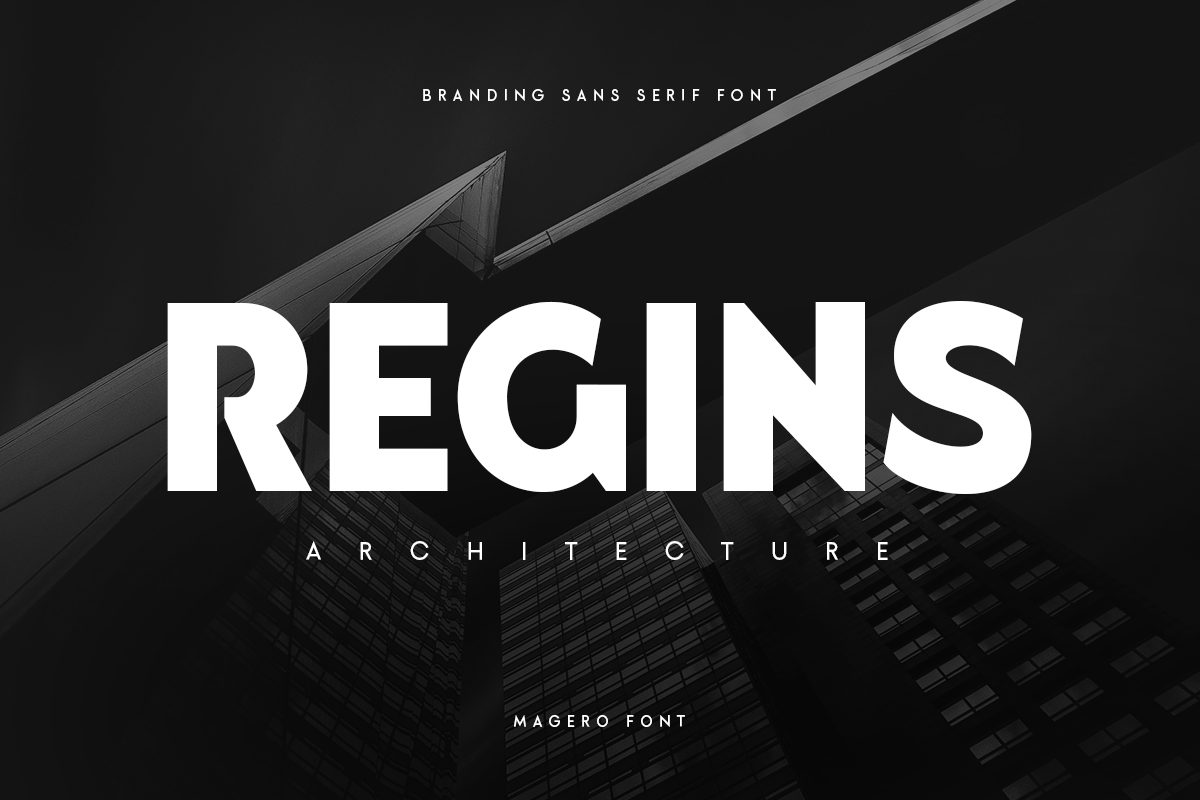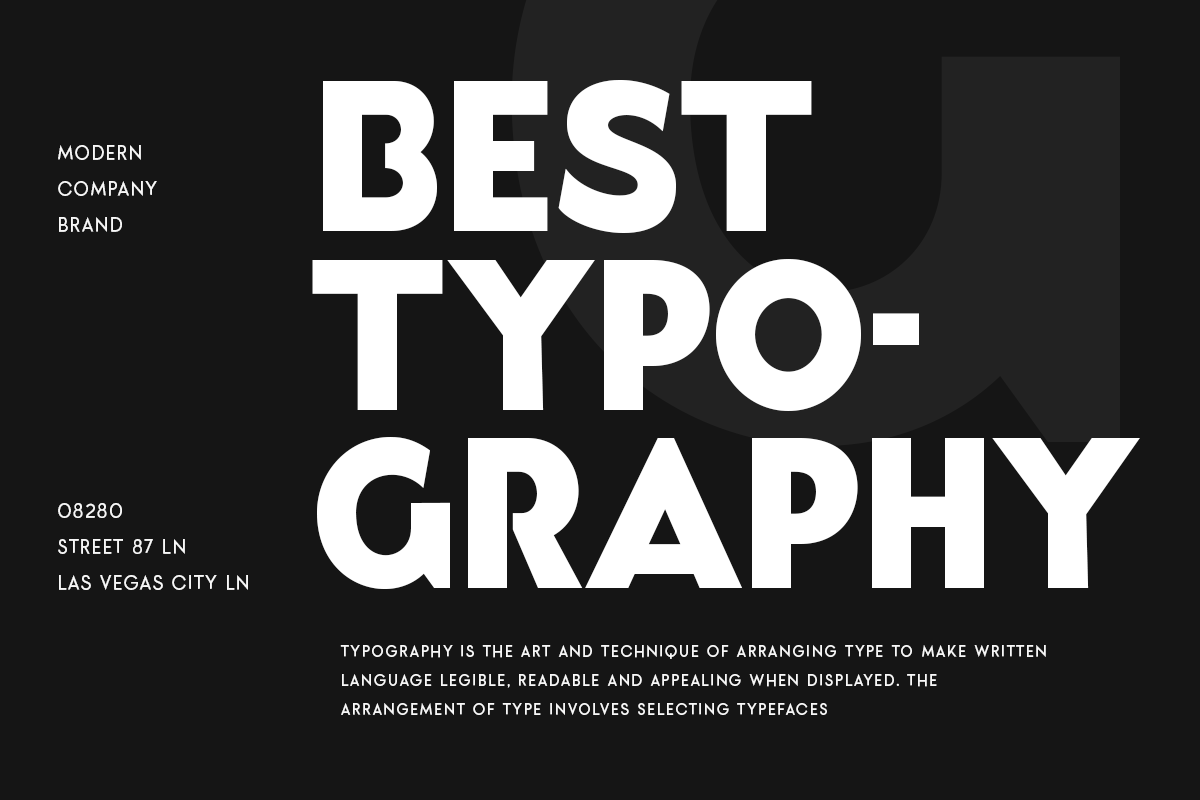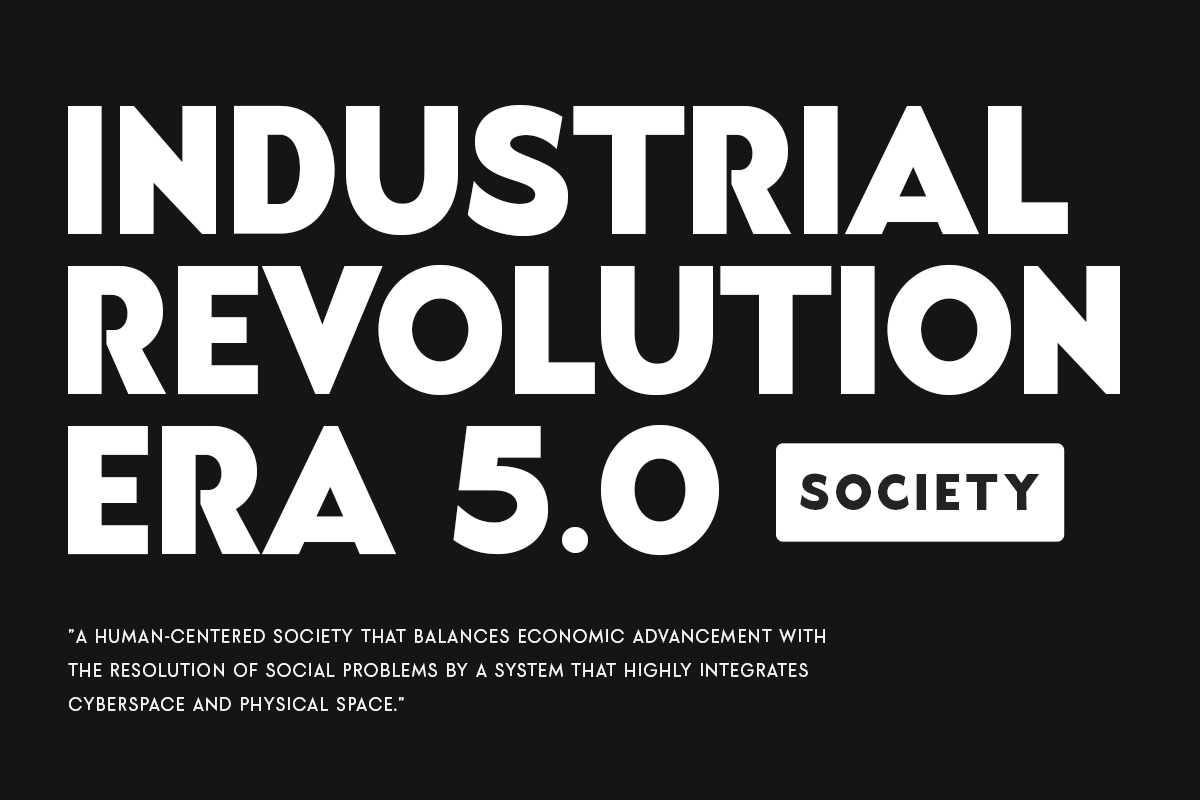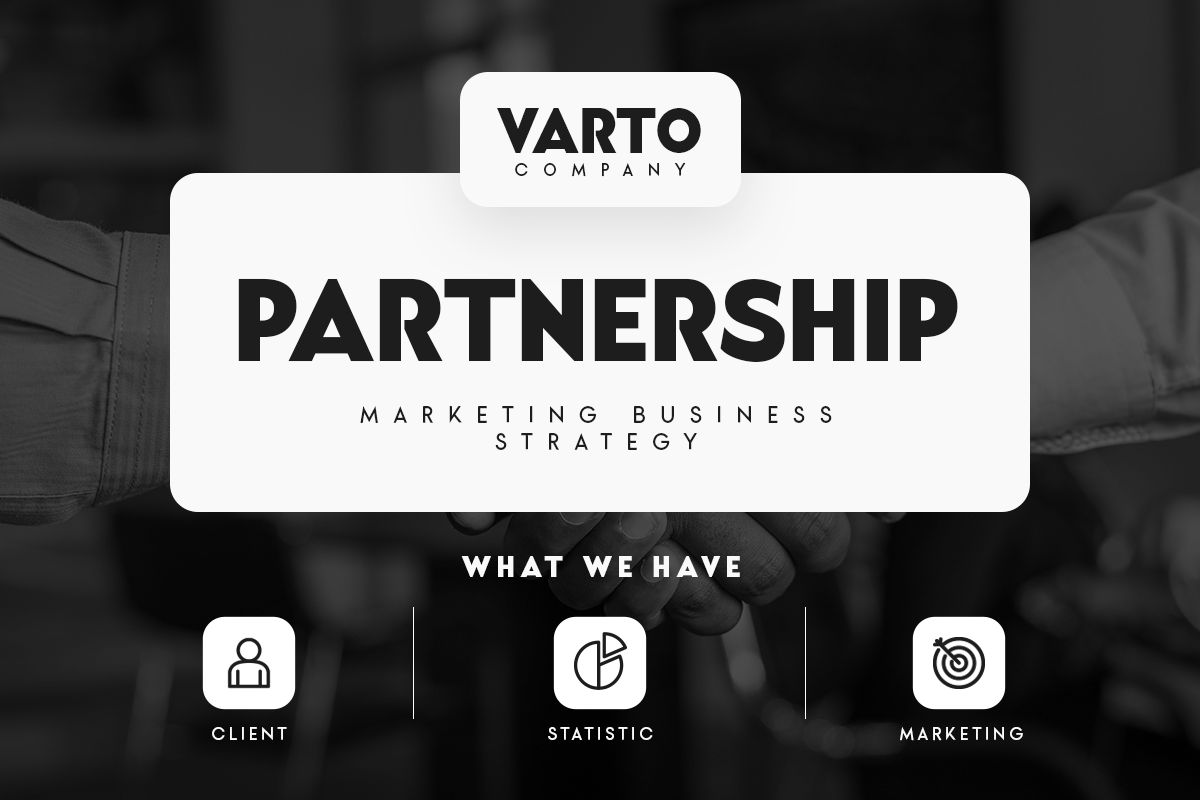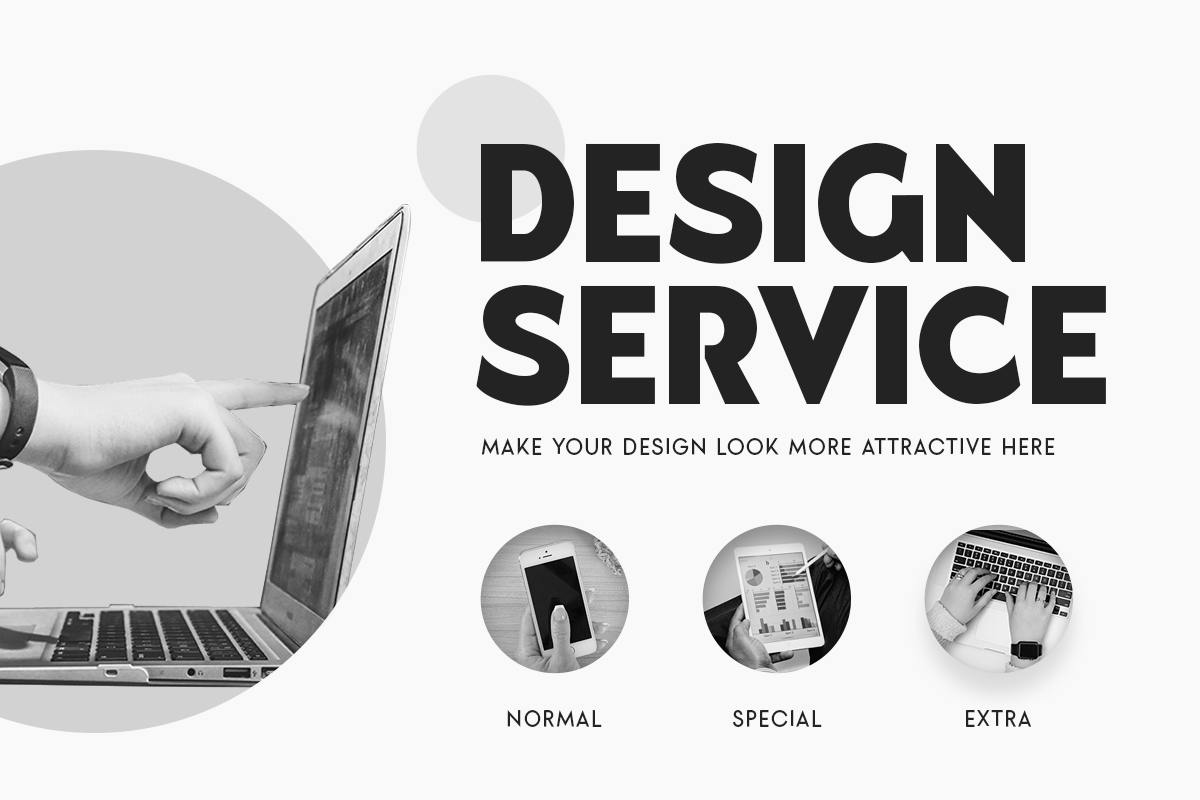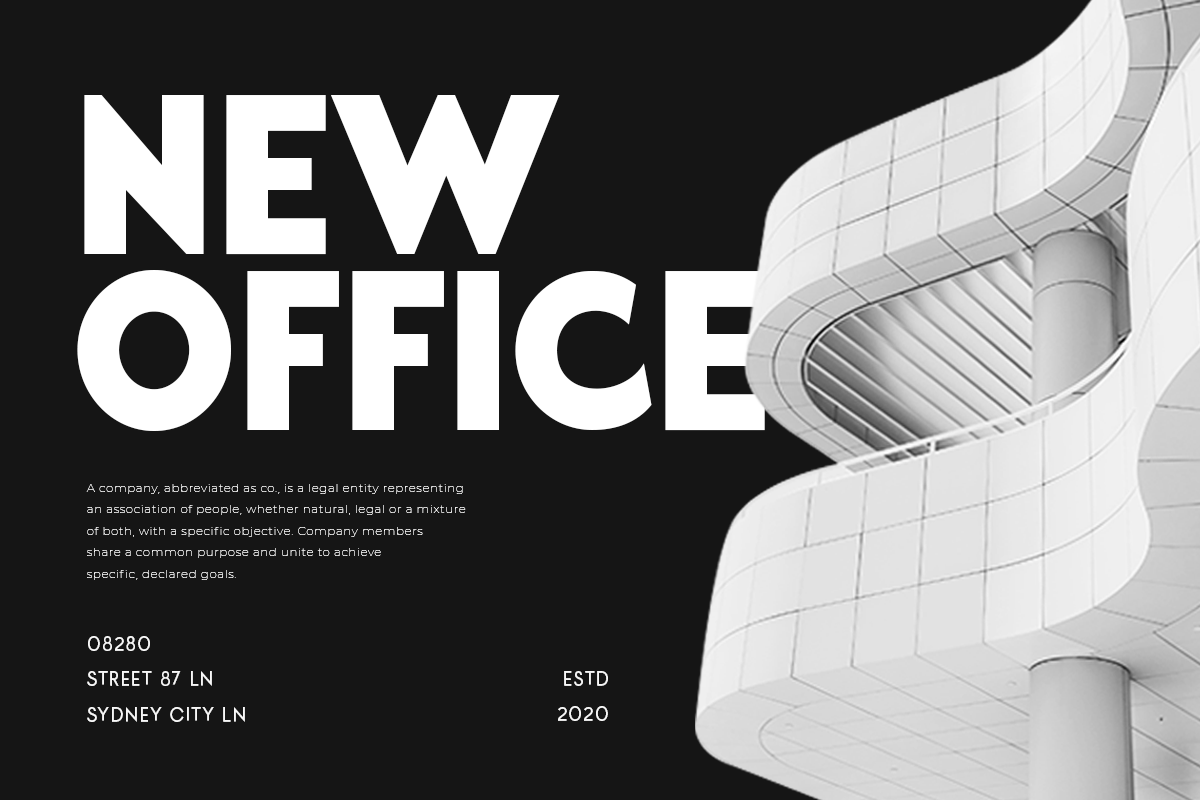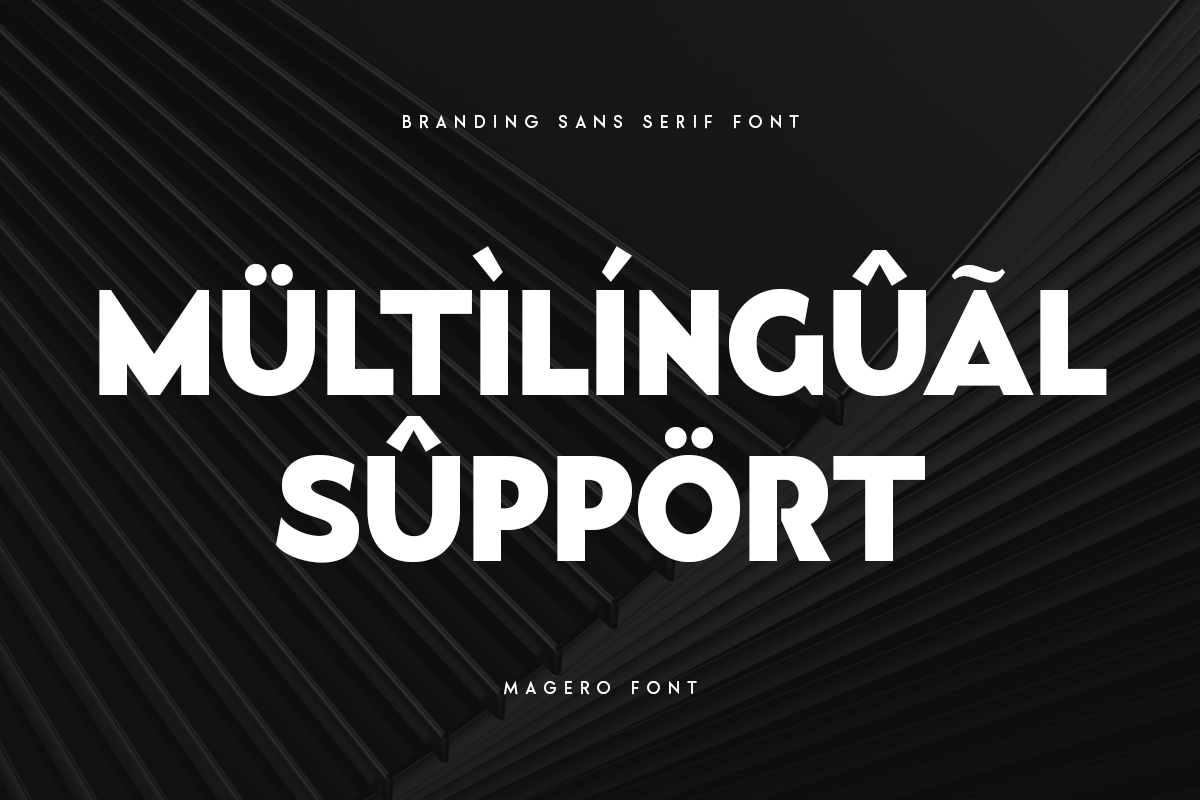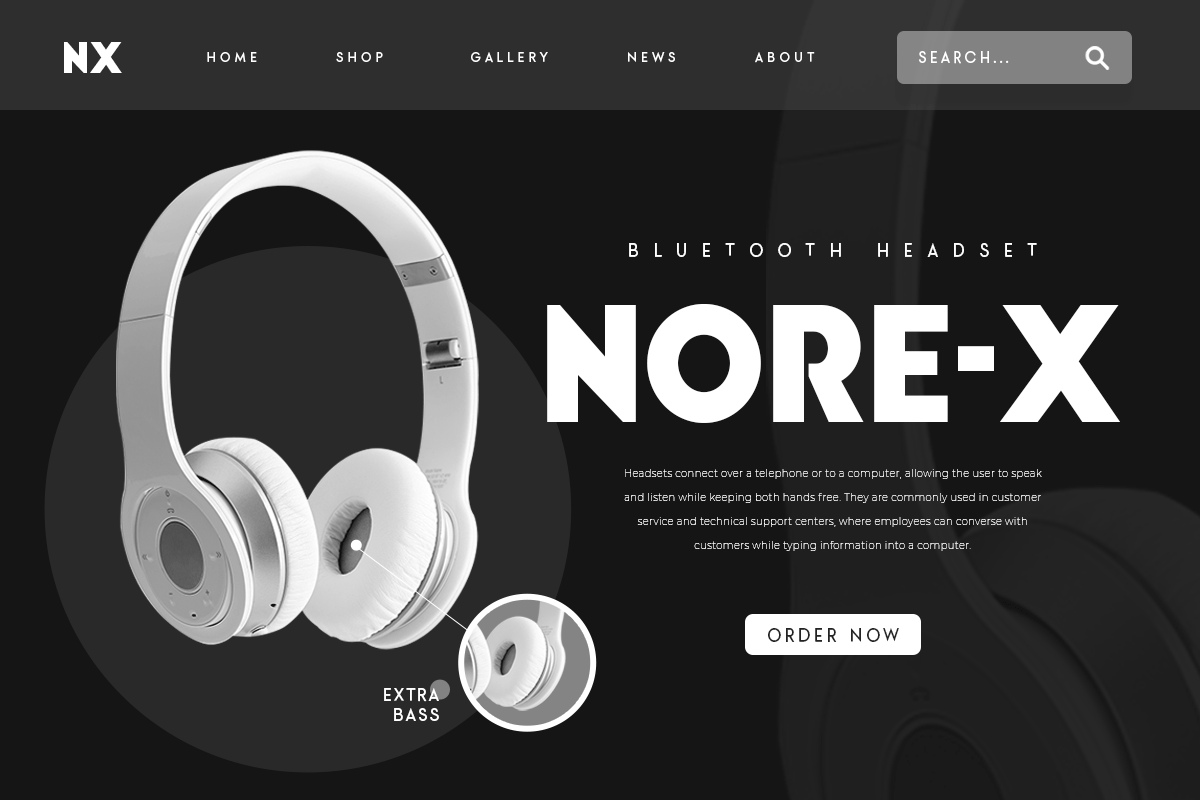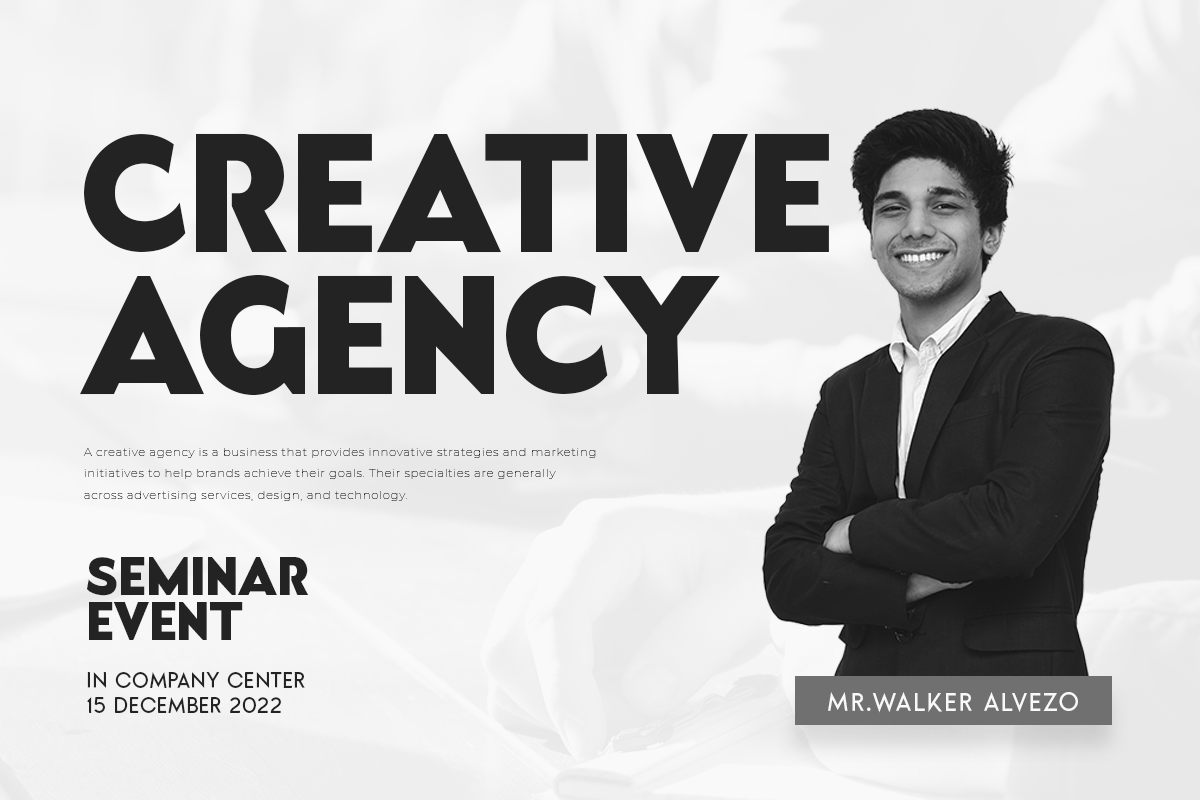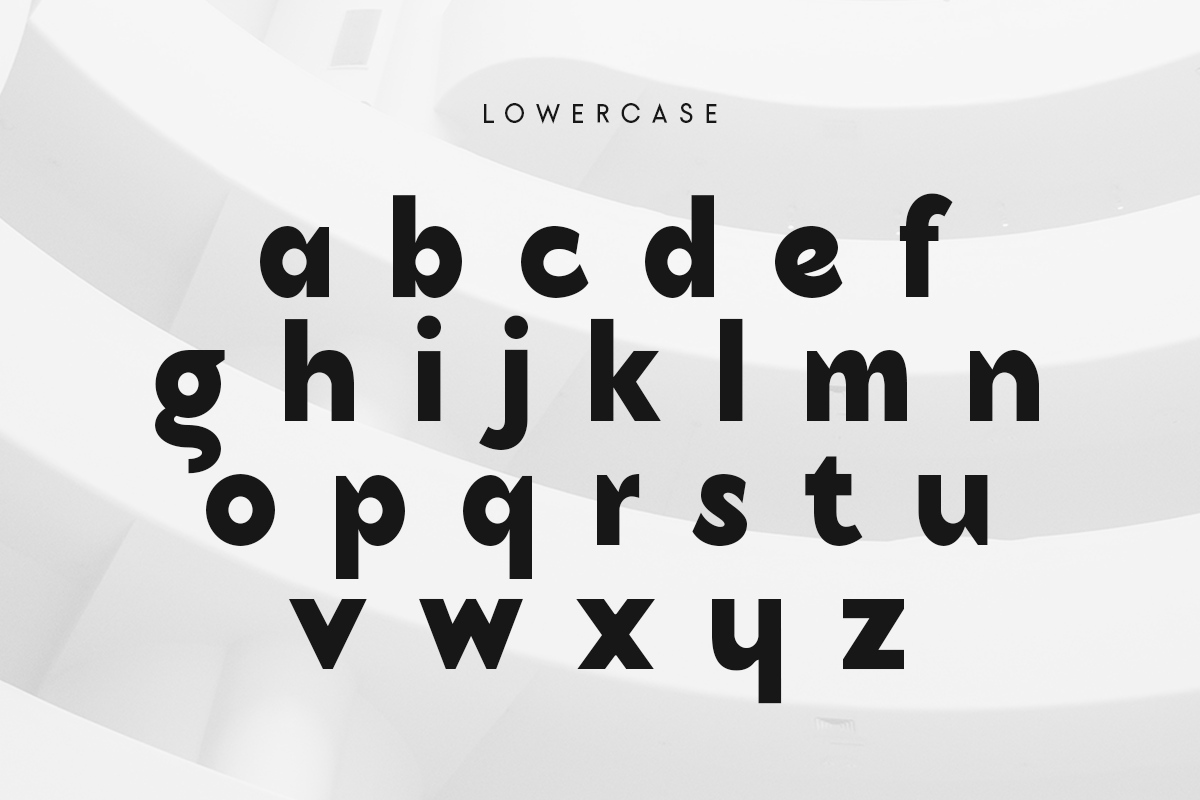
Magero – Branding Sans Serif Font
Magero is a Geometric sans serif font with modern, minimalist, elegant, unique and bold-look. This font crafted specials for Modern-themed projects, ready to use on Magazine, Social Media, Branding, Logo, and Many more that needs Modern touches.
Magero is also included full set of:
- uppercase and lowercase letters
- multilingual characters
- numerals
- punctuation